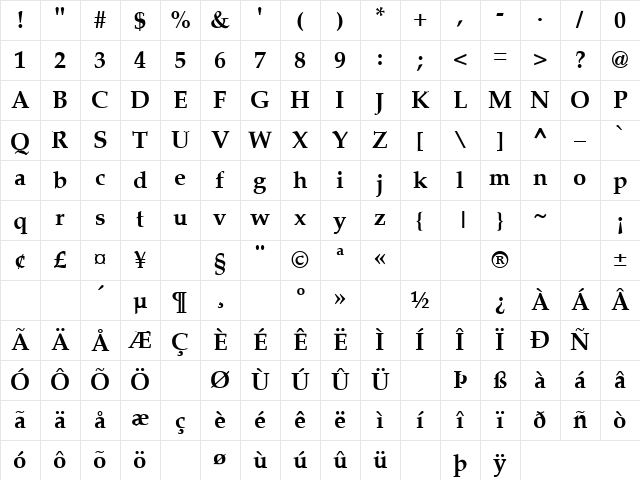
Southbound 5 Regular
Design Context for Southbound 5
Southbound 5 is a composed and adaptable typeface that performs quietly and consistently across a wide range of design contexts.